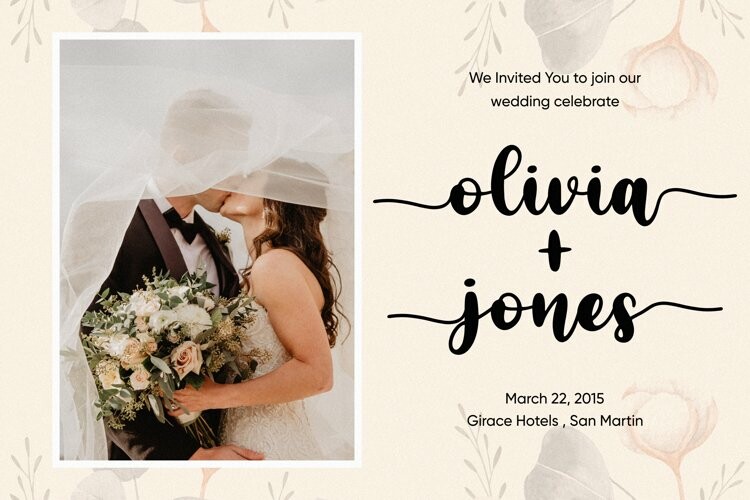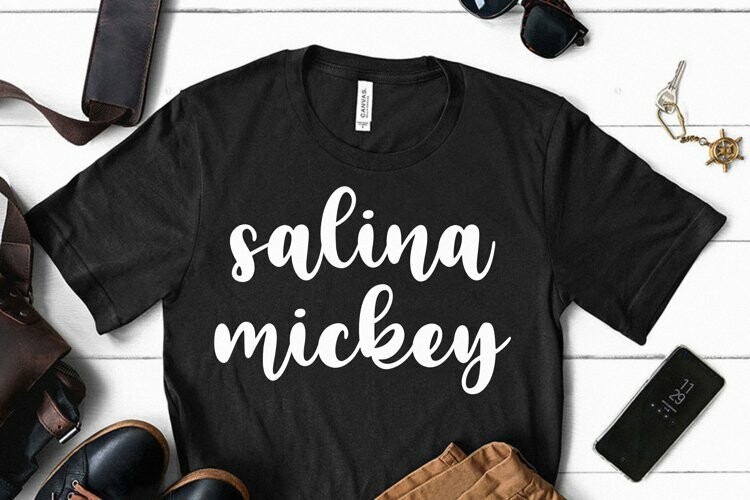
Catchy Sunday Font
Catchy Sunday FontCatchy Sunday Is a Bold Script Font Include more than 50+ Stylistic Set Character
Catchy Sunday is perfect for product packaging, branding project, megazine, social media, wedding, or just used to express words above the background.